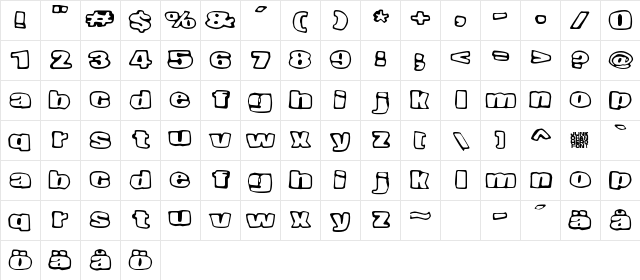
Nopee Torstai Regular Free Font
Nopee Torstai Regular
Designer: junkohanhero
Design Context for Nopee Torstai
Nopee Torstai is a composed and adaptable typeface that performs quietly and consistently across a wide range of design contexts.